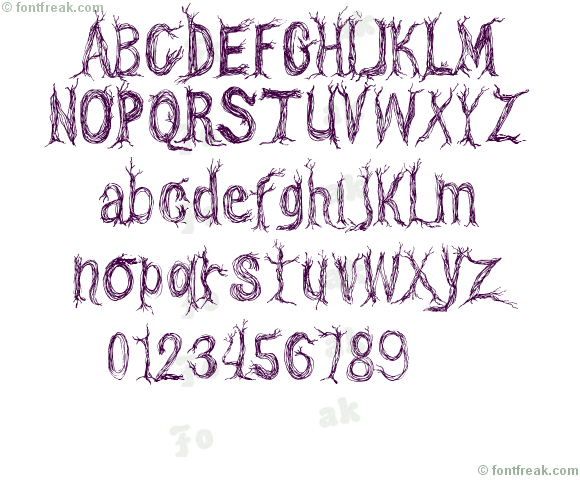
CF One Two Trees Regular
About CF One Two Trees Regular
CF One Two Trees Regular font by Cloutierfontes is a captivating display typeface that embraces a distinctive and artistic style. This font falls into the decorative category, characterized by its whimsical, organic forms that resemble twisted branches or roots. The stroke weight is varied, giving it a lively and dynamic appearance, while the irregular spacing adds to its unique charm. Each letter features playful, intricate details that evoke a sense of nature, making it a perfect choice for designs seeking an earthy aesthetic.
This font is particularly well-suited for a variety of creative applications. It shines in wedding invitations, where its enchanting style can evoke a romantic, rustic feel. Additionally, CF One Two Trees Regular can be utilized in children's book covers, as its playful design appeals to younger audiences. Restaurant menus also benefit from this typeface, especially for establishments focusing on organic or farm-to-table themes, where the font's natural characteristics resonate with the brand's identity. Furthermore, it can enhance promotional materials for eco-friendly businesses, providing a visually appealing way to communicate their commitment to sustainability.
The target audience for this font includes graphic designers looking for unique typefaces to elevate their projects, small business owners seeking to create a memorable brand identity, and content creators who want to add a distinctive touch to their visual content. The CF One Two Trees Regular font free download offers an accessible option for those wanting to incorporate this imaginative style into their work.
What truly sets CF One Two Trees Regular apart is its ability to blend creativity with functionality. Its distinctive character not only captures attention but also communicates a sense of whimsy and authenticity, making it an excellent choice for any project that requires a touch of personality.